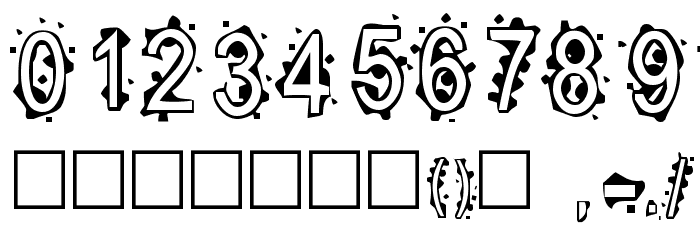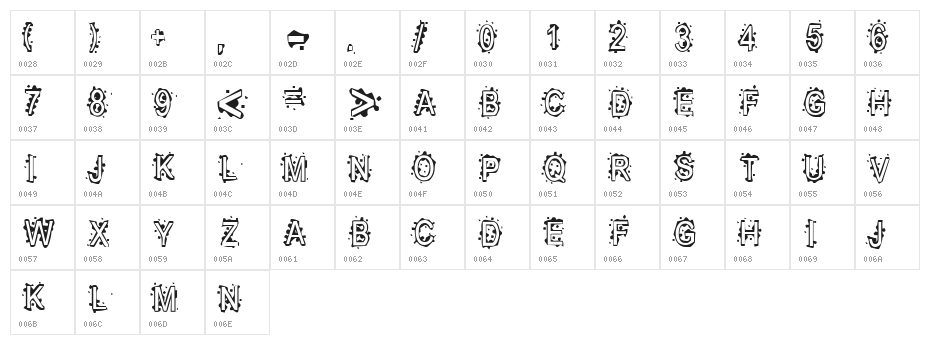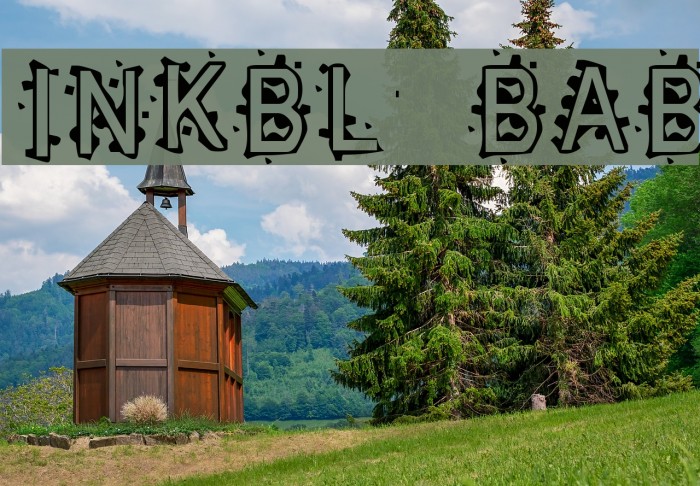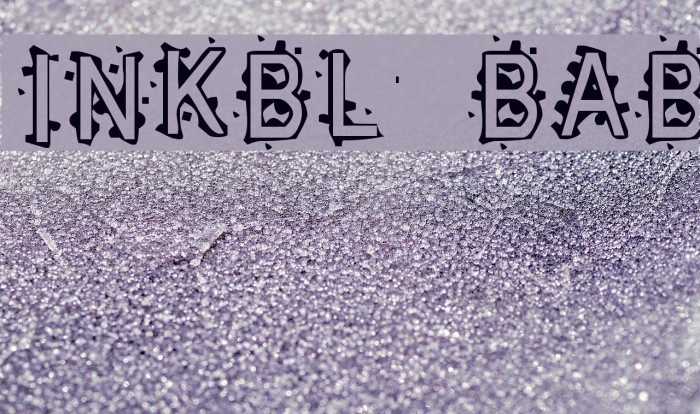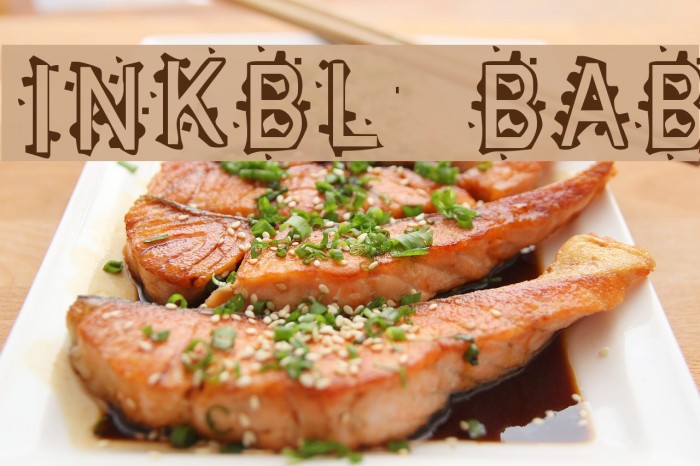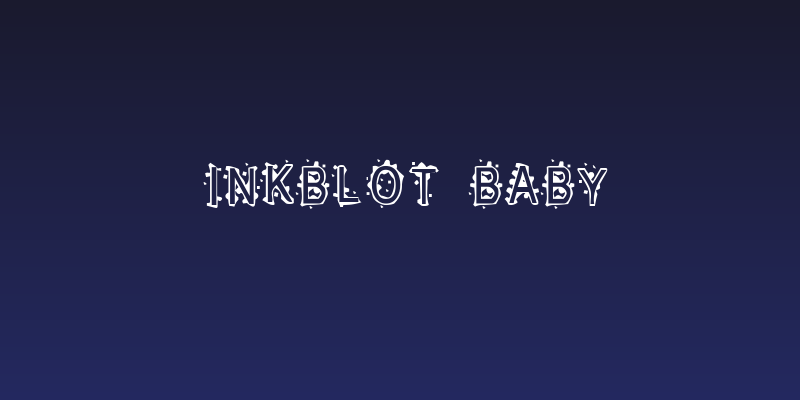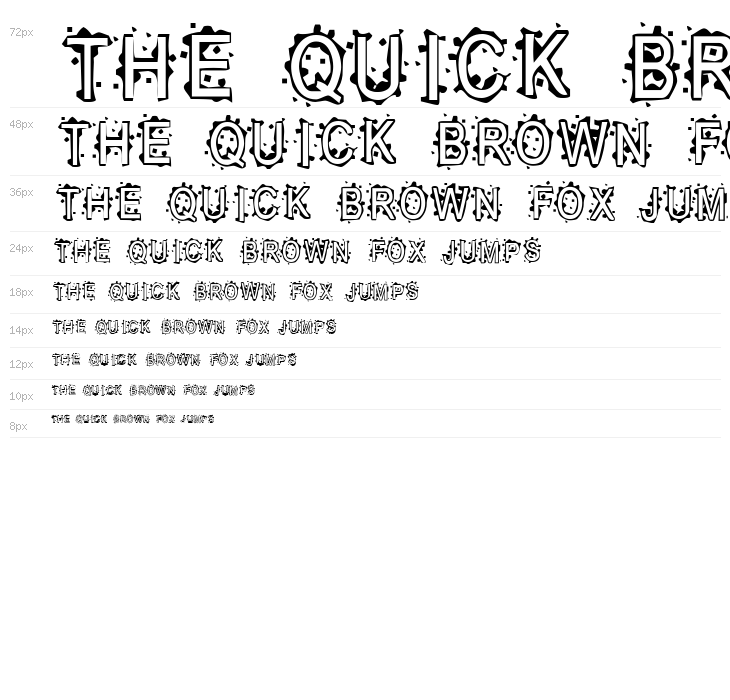
Inkblot Baby Font
This font features a playful and whimsical design, characterized by its bold, outlined letters with irregular inkblot-like splatters surrounding each character. The uppercase and lowercase letters maintain a consistent style, with the inkblots adding a dynamic and energetic feel. The numbers and special characters follow the same design principles, ensuring a cohesive look across all elements. The font's unique appearance makes it stand out, offering a creative and artistic touch to any project.
A playful, inkblot-themed decorative font with bold outlines.
• Proposed Projects: Ideal for children's book covers, playful posters, creative branding, and artistic event invitations.
• Category: Decorative/Display
• Contrast: Low
• Overall Style: Decorative
• Use Case: Logos, Posters, Creative Titles